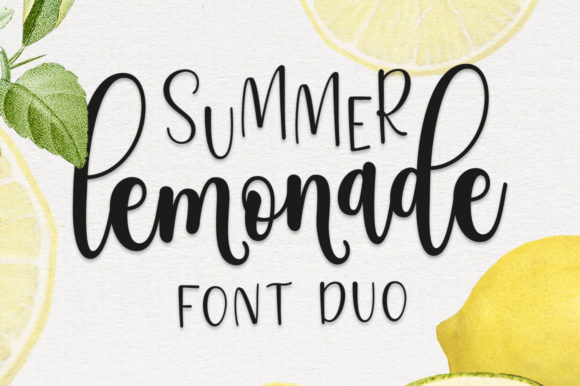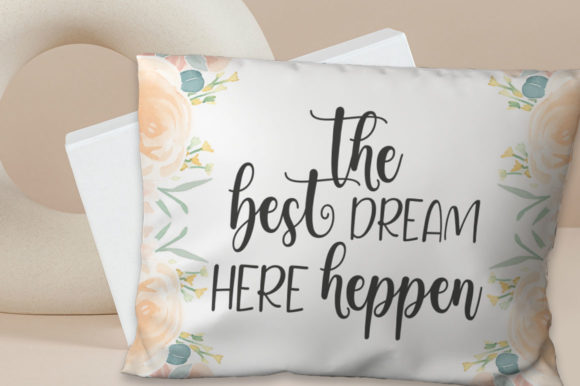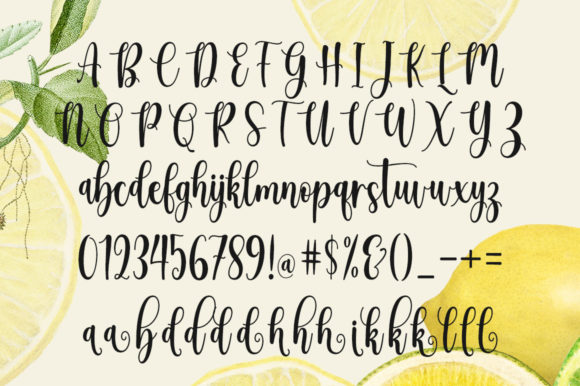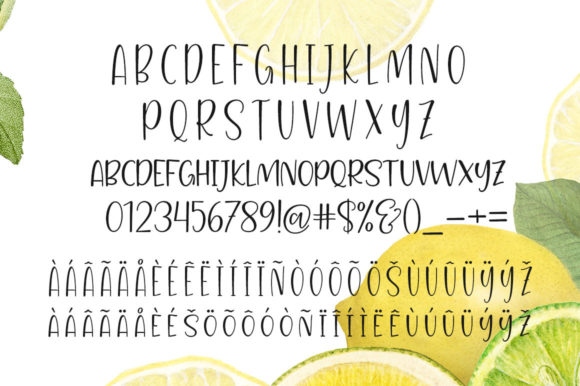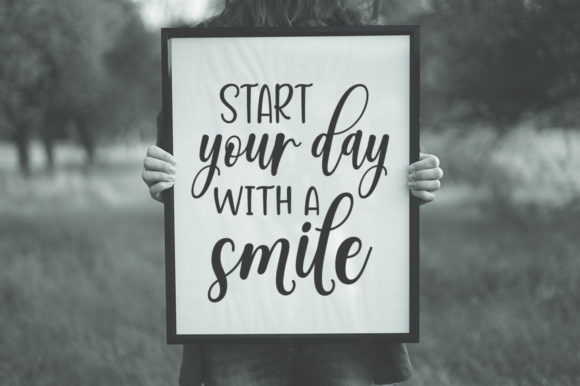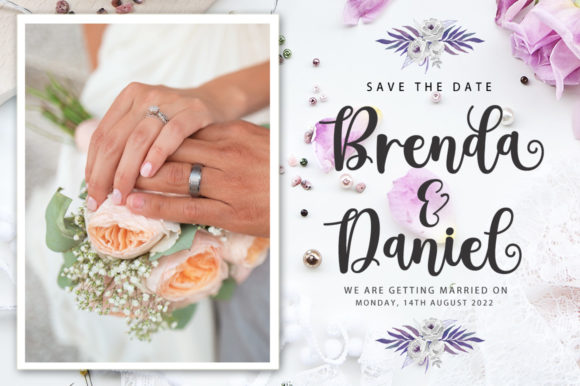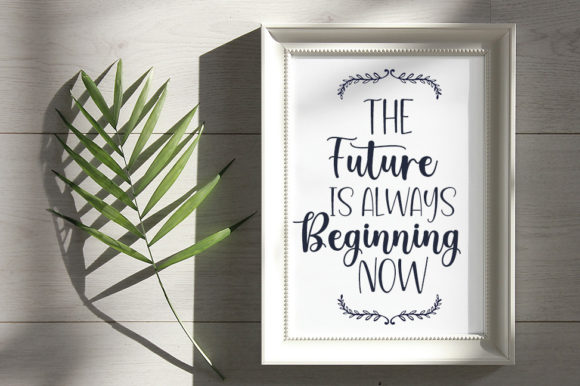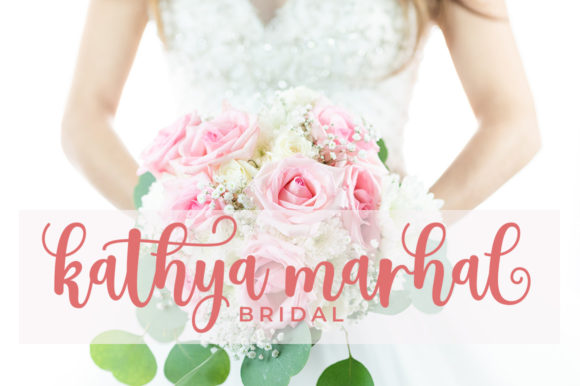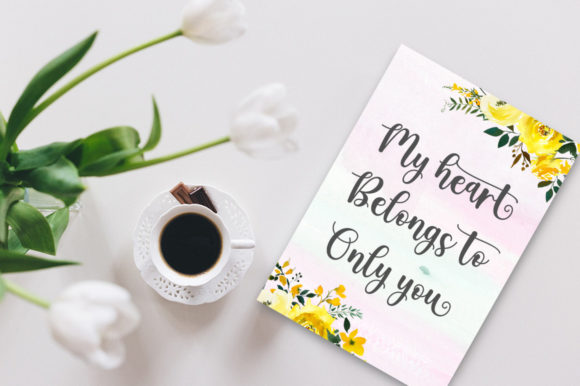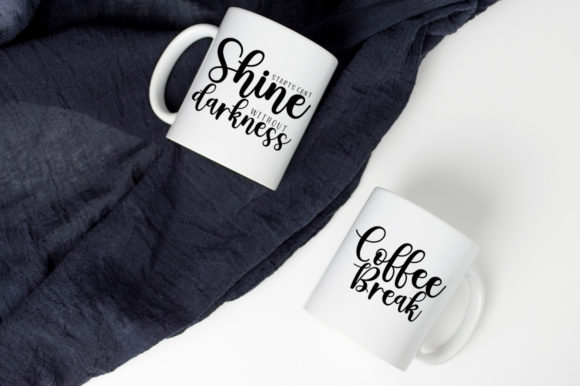
Summer Lemonade Font
About Summer Lemonade Font
Summer Lemonade is both easy to use and fun, ideal for giving your projects a branded but friendly feel. The two included styles can be combined together perfectly but are also beautiful on their own.